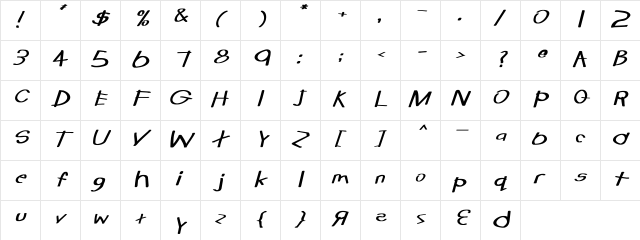
Tabatha Wd bold italic Bold Italic Font Preview
Tabatha Wd bold italic Bold Italic
Design Context for Tabatha Wd bold italic Typeface
Tabatha Wd bold italic is a composed and adaptable typeface that performs quietly and consistently across a wide range of design contexts. Its italic angle brings a sense of urgency and motion to the letterforms. Its bold stroke weight gives it real presence on the page.